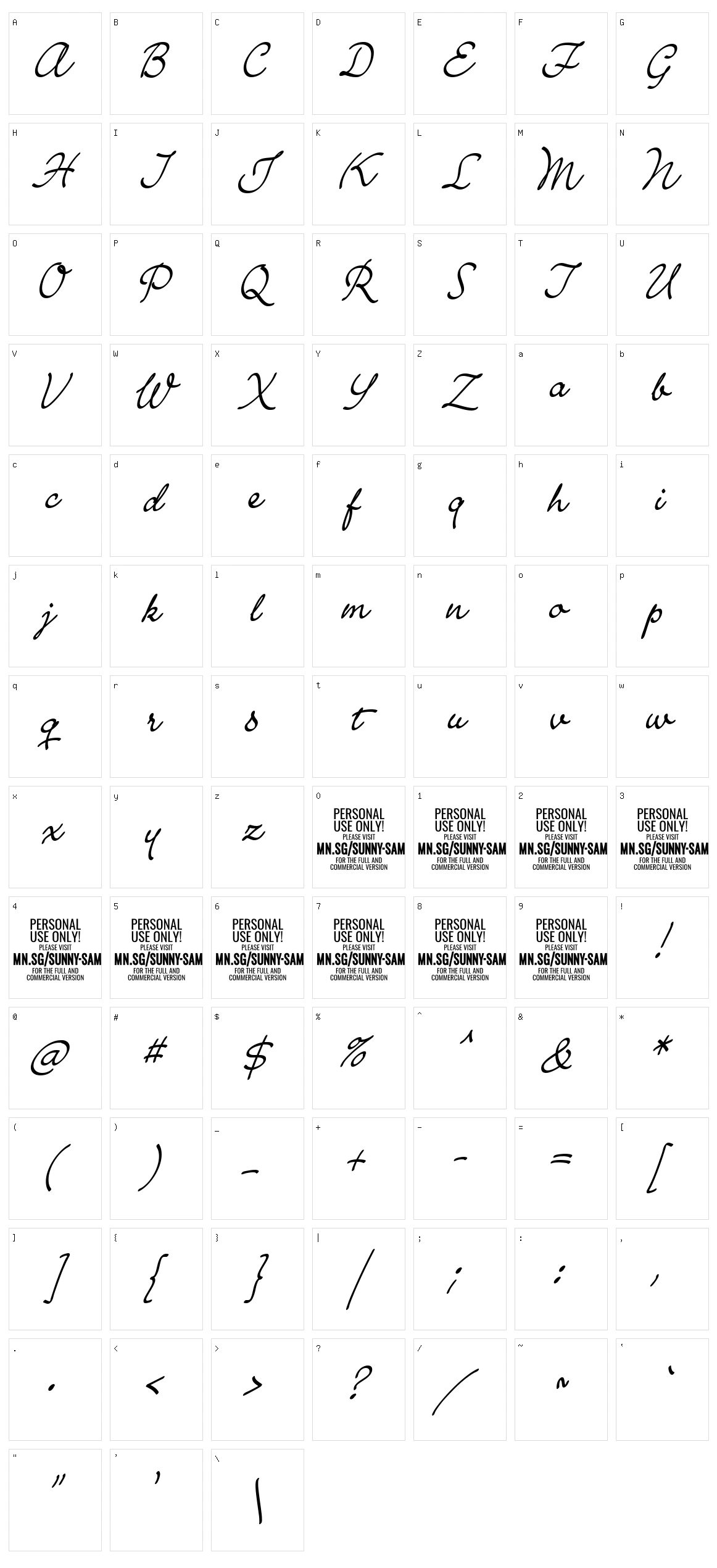
Sunny Sam is a fun handwritten typeface.
It was drawn and created by Måns Grebäck during 2019 and 2020.
The movements of this happy script font represents optimism and vivacity.
Sunny Sam comes in three high-quality styles: Thin, Medium and Bold
The three weights works great as complements to one another.
It has an extensive lingual support, covering European Latin scripts.
The font contains all characters you'll ever need, including all punctuation and numbers.